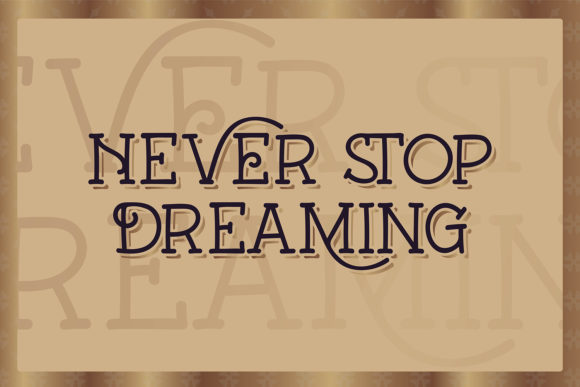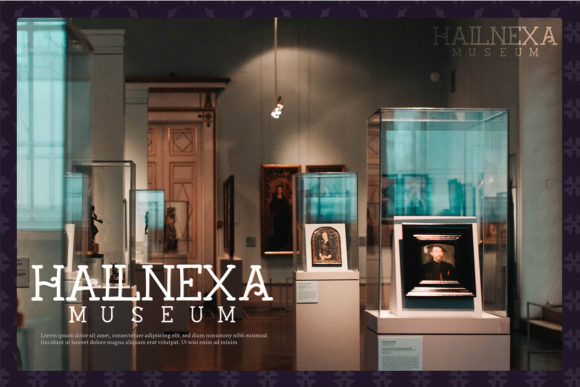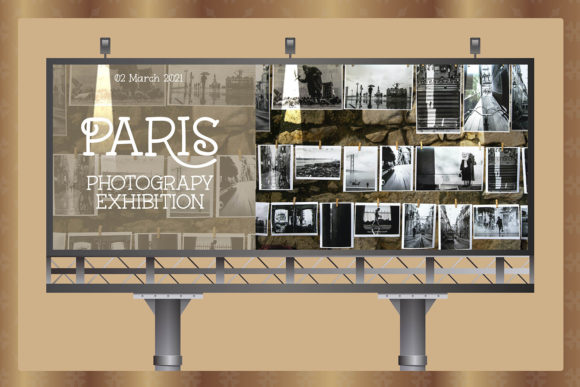
Introduction to Liveriont Font
Have you ever been working on a creative project, pouring your heart and soul into it, only to feel like something’s missing? That’s where the perfect font comes in – and that’s exactly where the Liveriont Font steps in. This elegant and vintage styled display font has the power to elevate any design and make it truly stand out.
| 👤 Author | Vunira |
Whether you’re a seasoned designer or just starting out, the Liveriont Font is a valuable addition to any design library. Its high-quality design and transparent background make it a versatile resource that can be used in a variety of creative contexts. And the best part? It’s available for free download, making it an accessible design resource for anyone looking to take their projects to the next level.
So why settle for a bland, generic font when you can add a touch of vintage sophistication to your design with the Liveriont Font? Whether you’re working on a personal project or a professional design, this font is sure to be a game-changer.
Key Features of Liveriont Font
- High-quality, professional font suitable for creative projects, with a transparent background for easy editing.
- Features a unique, modern design that can be used in a variety of creative applications, from logos to typography-based art.
- Perfect for designers, artists, and creatives looking for a high-quality, free font to enhance their designs and projects.
Honest Review: Liveriont Font
As a designer, I’m always on the lookout for high-quality fonts to elevate my creative projects. Recently, I had the chance to work with the Liveriont Font, and I must say it’s a gem. ✨
The Liveriont Font is available for free download, which is a definite plus for designers working on a budget. Its transparent background makes it versatile and easy to use in various design scenarios. Whether you’re working on a digital project or print material, this font is a great addition to your design resource library.
Here are some pros and cons of the Liveriont Font:
- ✨ Highly legible and clear, making it perfect for body text
- ✨ A wide range of font sizes and styles to choose from
- ⚠️ Limited character set, which may not be suitable for projects requiring extensive typography
- ⚠️ Not suitable for projects requiring a specific font weight or style
Overall, I’m impressed with the Liveriont Font’s quality and versatility. While it may have some limitations, it’s definitely a valuable addition to any designer’s library. If you’re working on a creative project and need a high-quality font, the Liveriont Font is definitely worth considering.
Tips for Getting the Most Out of Liveriont Font
For a transparent background, use the Liveriont Font on a PNG or GIF image. This font is ideal for creative projects that require a unique and stylish look. To get the most out of the font, experiment with different font sizes, colors, and styles.
The Liveriont Font is commonly used in creative projects such as logo design, branding, and marketing materials. Its high-quality design makes it a popular choice for designers looking for a unique and stylish font.